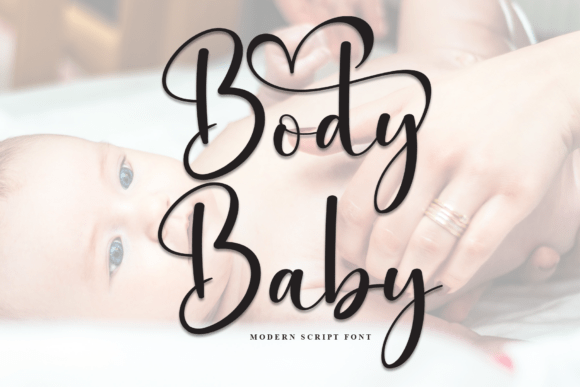
The Elusive Perfect Font: My Journey with Body Baby
I’ll never forget the countless hours I spent searching for the perfect font for a client’s wedding invitation. The design brief was simple: elegant, sophisticated, and with a touch of whimsy. As I scrolled through font after font, I couldn’t shake the feeling that something was missing. That was until I stumbled upon Body Baby, a stylish handwritten script font that has since become a staple in my design toolkit.
First Impressions: A Love Affair with Body Baby
Body Baby radiates elegance and fluidity, with smooth, flowing strokes that create a natural and sophisticated feel. This font is perfect for branding, invitations, and creative projects where you want to add a personal, artistic touch. Here are a few things I love about Body Baby:
• ✨ Elegant and sophisticated, yet approachable and friendly
• ✅ Smooth, flowing strokes that create a natural feel
• 💫 Perfect for branding, invitations, and creative projects
• 🎨 Highly versatile, works well in both digital and print formats
The Honest Review: Not Perfect, But Close
While Body Baby has won my heart, it’s not without its quirks. Here are a few things to keep in mind:
• 🤔 Limited character set, may not be suitable for very long texts
• ⚠️ Some users may find the font too ornate or over-the-top
3. Experiment with OpenType features, such as ligatures and stylistic alternates, to add visual interest
The Story Behind Body Baby
While the true story behind Body Baby remains a mystery, it’s easy to imagine a designer pouring their heart and soul into creating this beautiful font. Perhaps they were inspired by the flowing scripts of the past, or maybe they simply wanted to create something elegant and sophisticated. Whatever the inspiration, Body Baby is a true gem in the world of typography.
What is Body Baby? Body Baby is a stylish handwritten script font that radiates elegance and fluidity.
Is Body Baby suitable for long texts? While Body Baby is beautiful, it may not be the best choice for very long texts due to its limited character set.
Is Body Baby easy to read? Yes, Body Baby is highly legible, making it perfect for use in a variety of design applications.